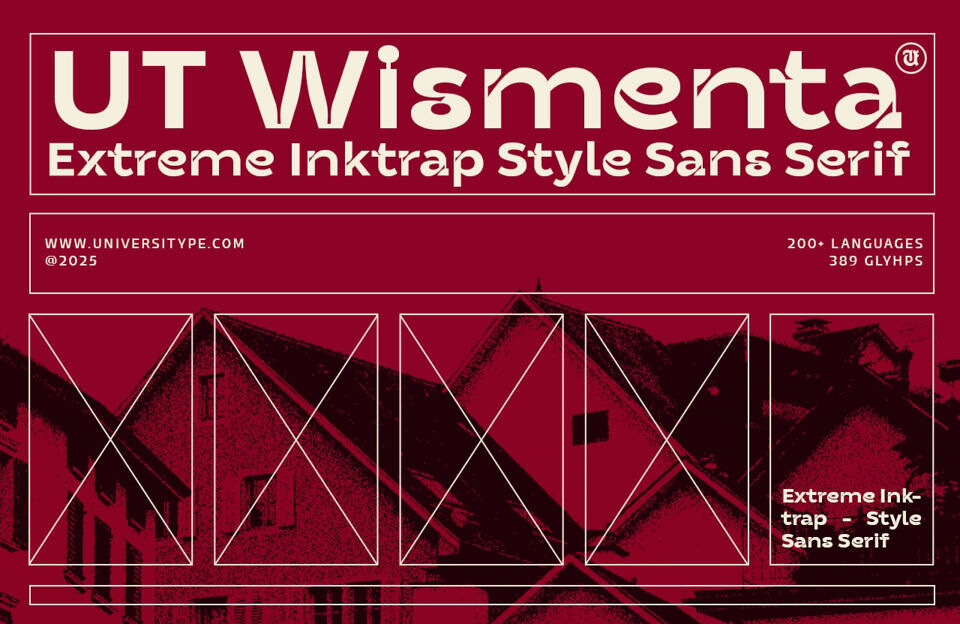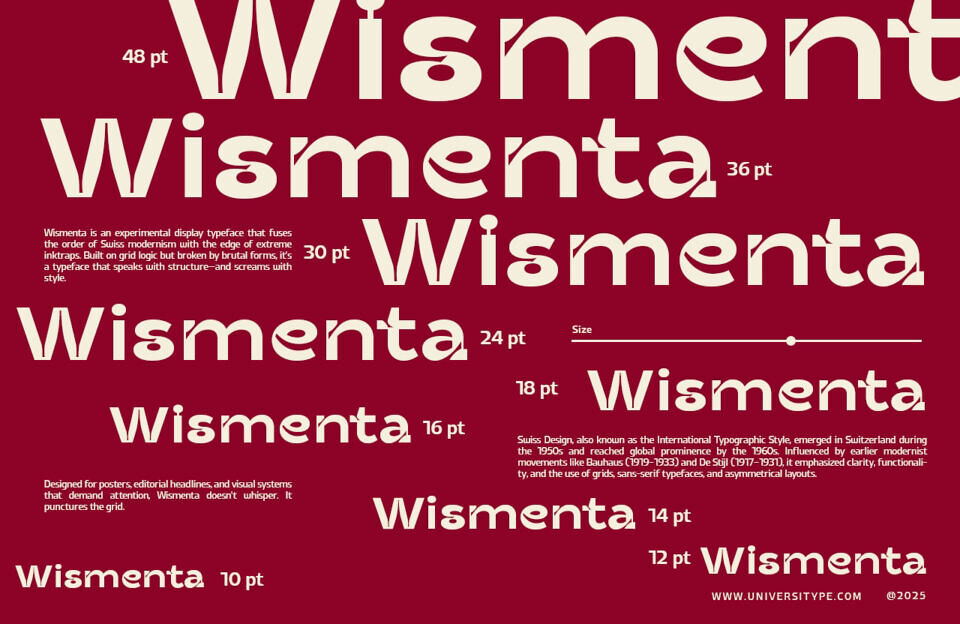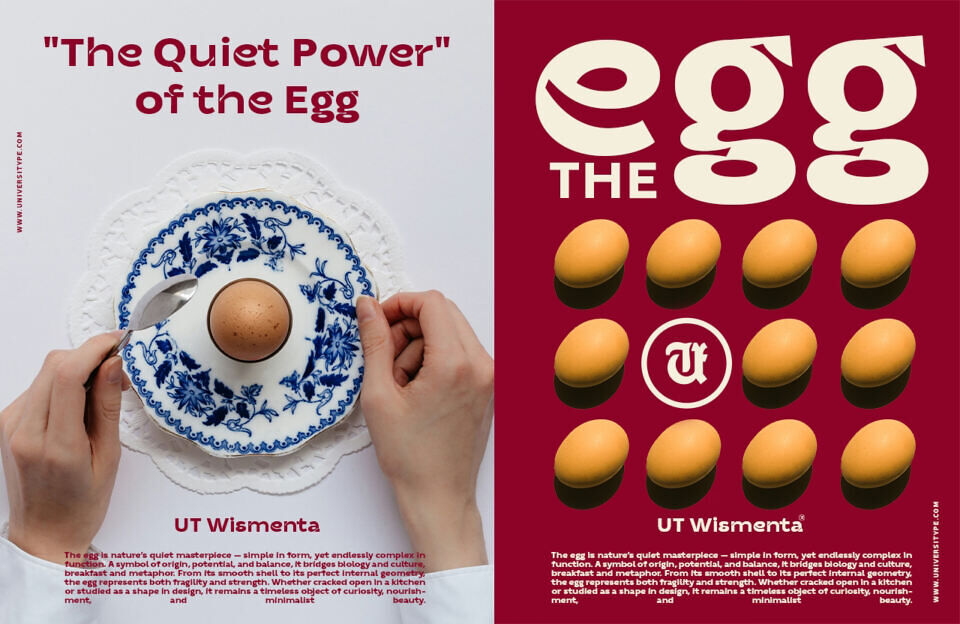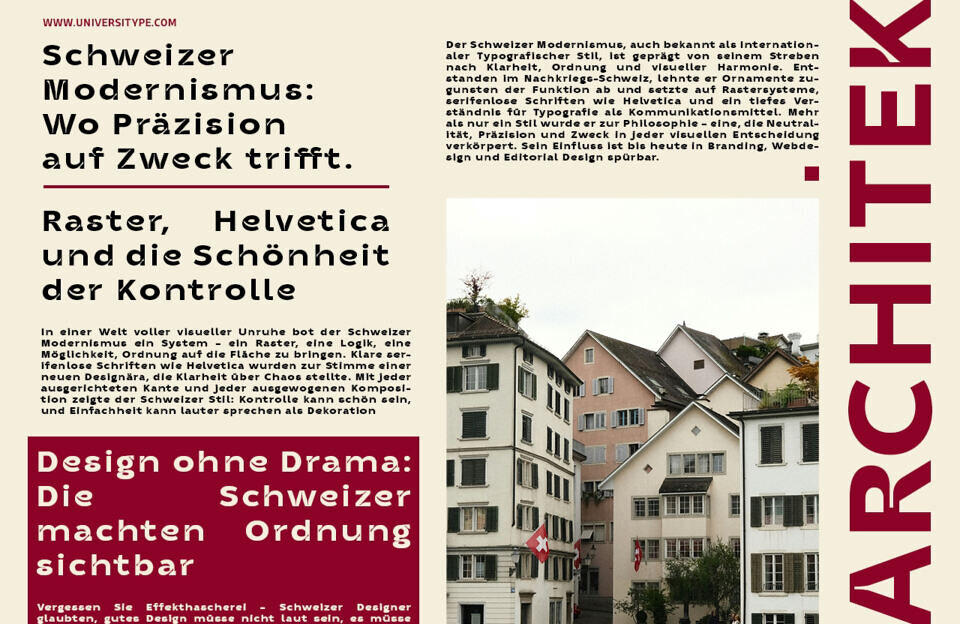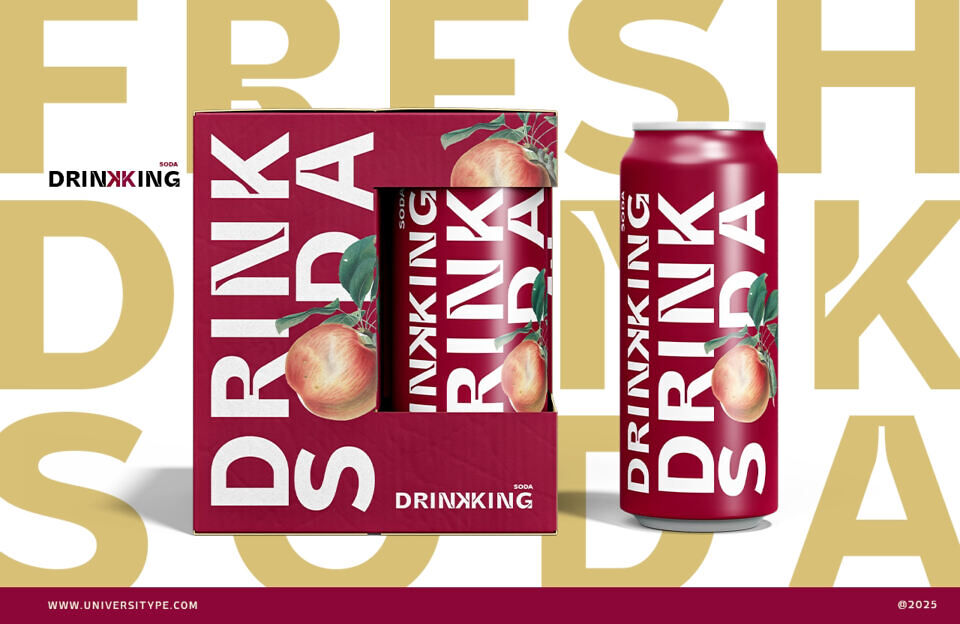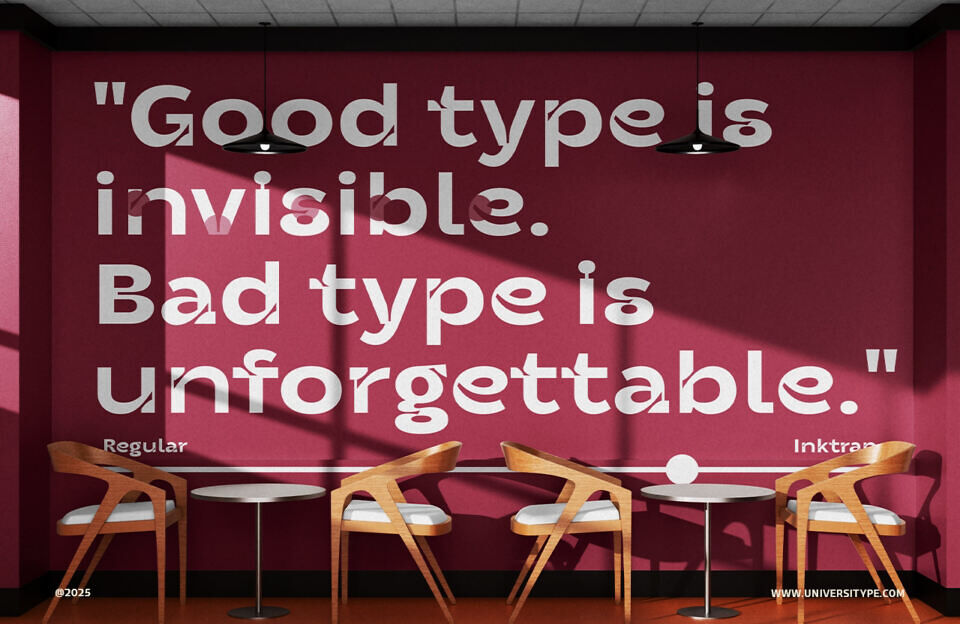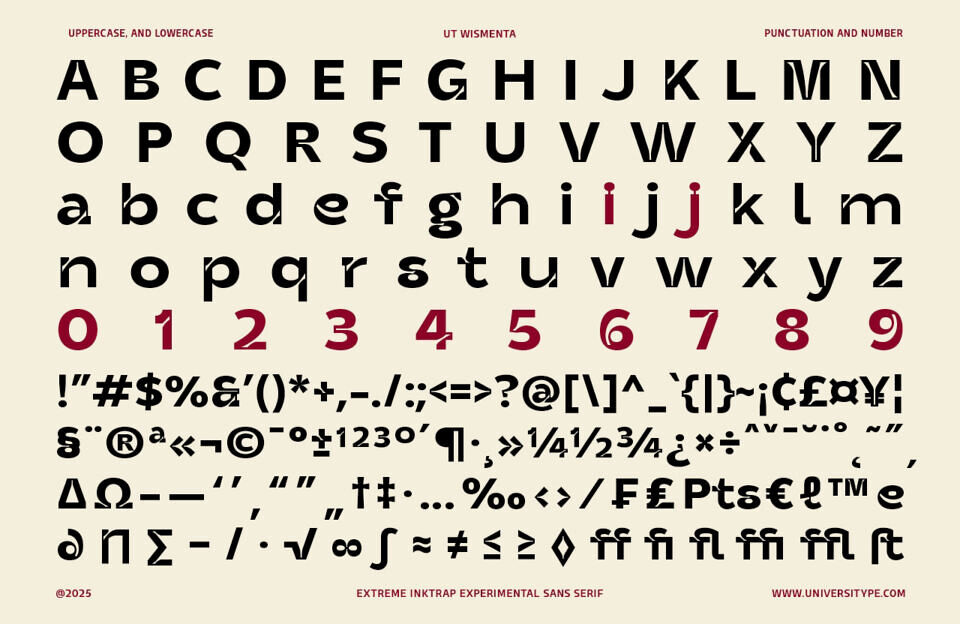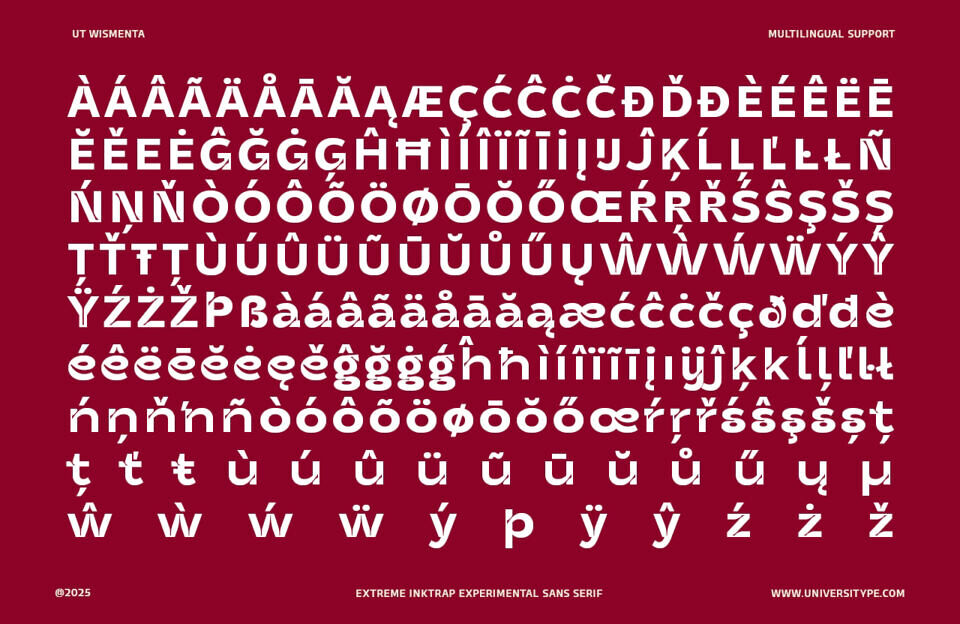
UT Wismenta is a bold display typeface that mixes the clean structure of Swiss modernism with the raw attitude of extreme ink traps. Built on grid logic but broken by brutal, expressive forms, this sans serif doesn’t just speak with structure, it shouts with style.